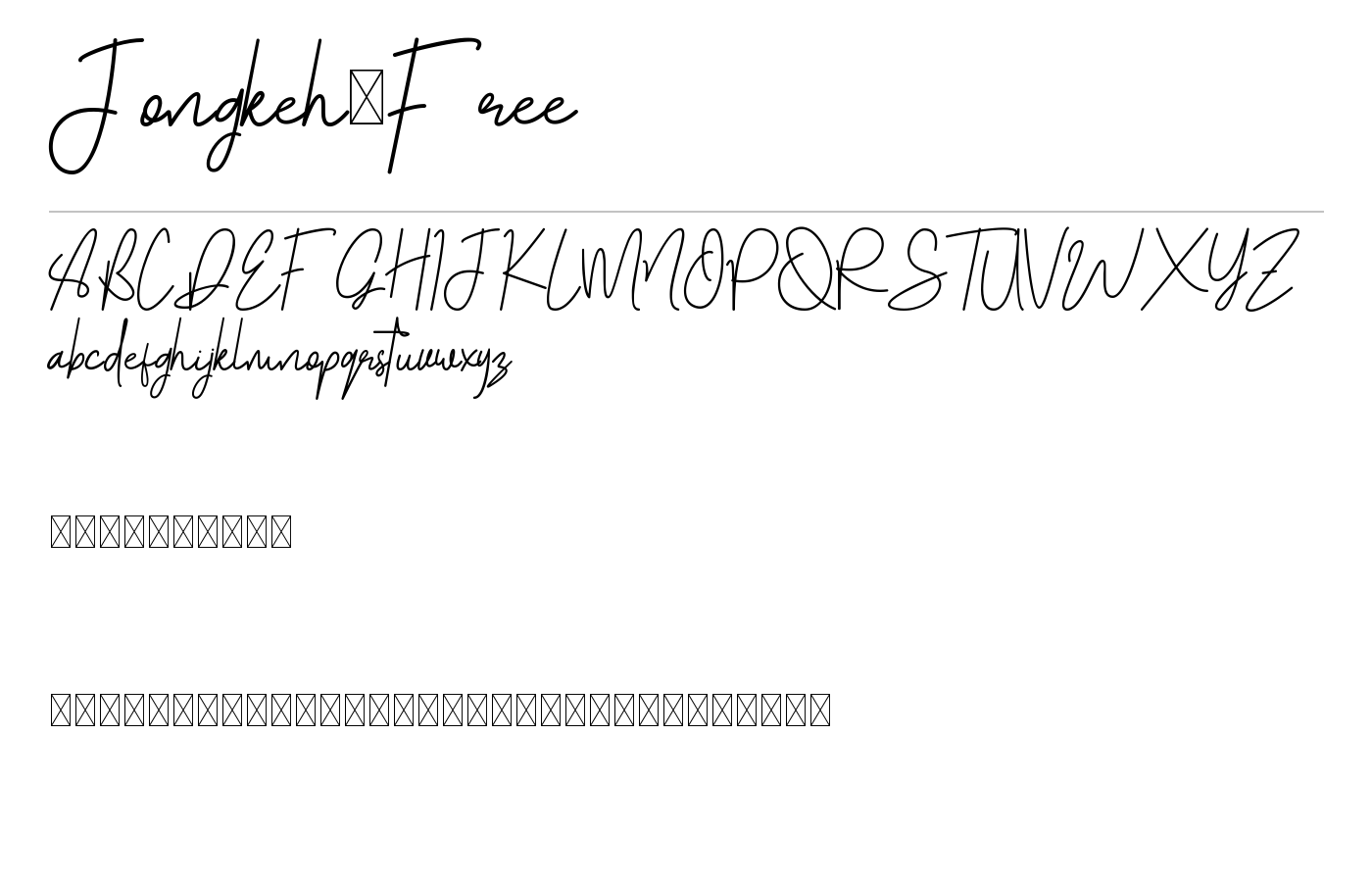
Jongkeh Font is a delicate and casual handwritten script that features slender, flowing letterforms with a natural, airy feel. Its light weight and slightly playful strokes make it perfect for adding a personal and creative touch to invitations, branding, and artistic projects where a friendly and approachable style is desired. This font works well in designs that benefit from an informal yet elegant handwriting vibe.
Jongkeh Font
About Jongkeh Font
| Font family | Jongkeh Font |
| Designer | Aidil Muladha |